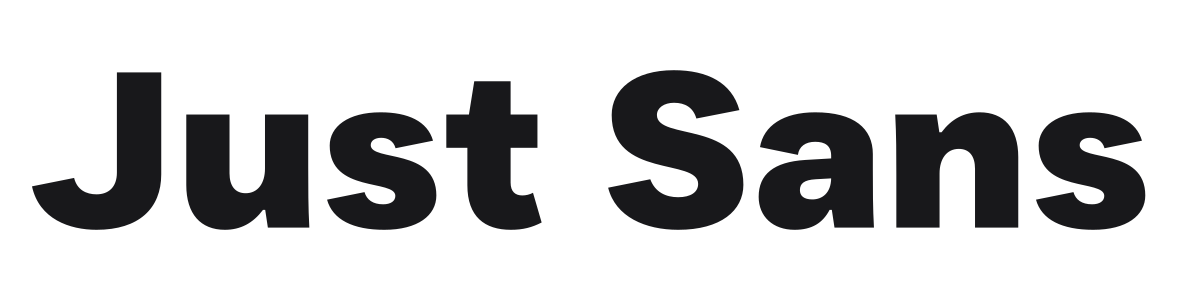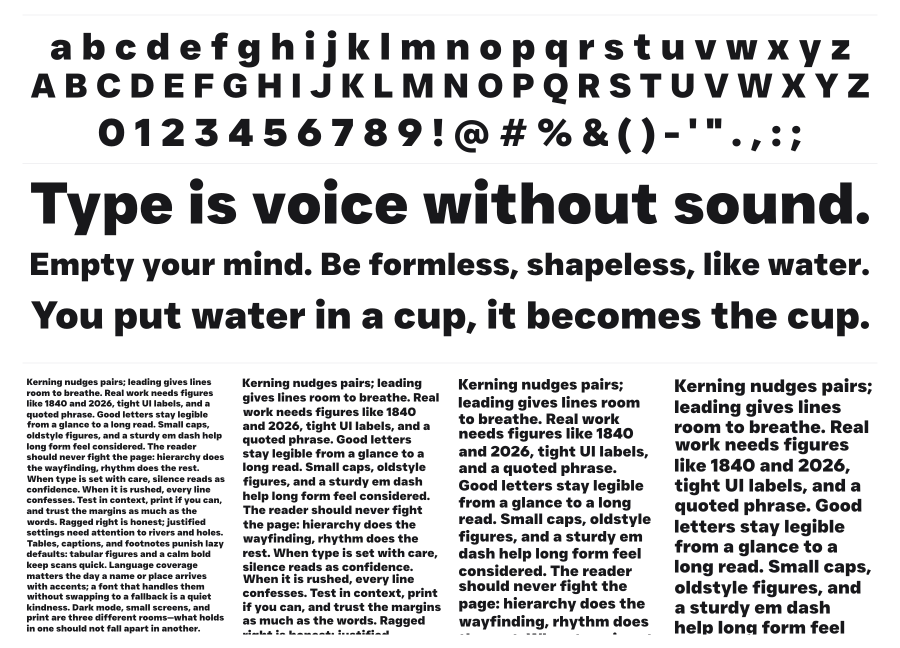
Just Sans
by Jacob Cass
Just Sans is a geometric sans-serif built around modernist clarity with just enough roundness to feel friendly rather than cold. The extra-bold weight shown here carries substantial visual weight while remaining open and legible at large sizes. It sits in useful territory between the rigid chill of a pure geometric and the casualness of a rounded sans.